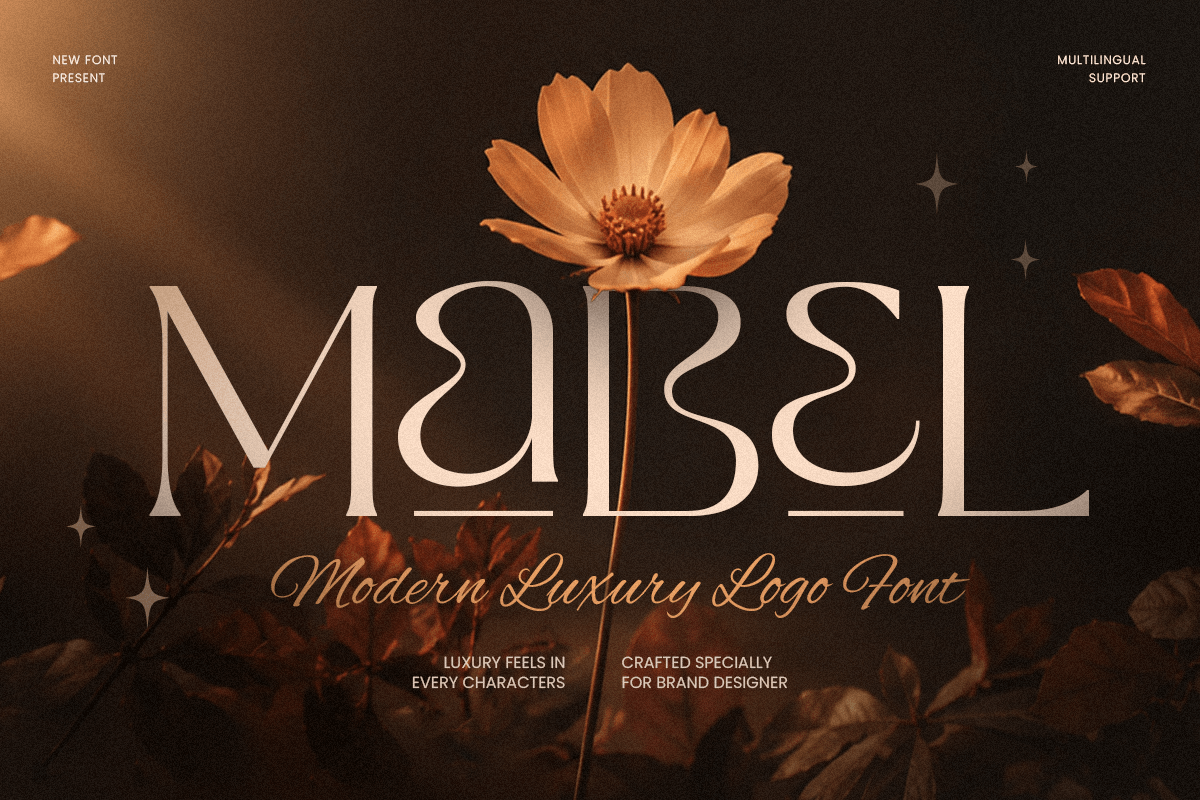
Mabel
-Modern Luxury Logo FontMabel - Modern Luxury Logo Font
Mabel is a modern luxury logo font designed to bring elegance, sophistication, and timeless beauty to premium visual identities. With refined letterforms, graceful proportions, and a polished contemporary style, this typeface is perfect for luxury logos, fashion branding, beauty packaging, editorial layouts, and high-end design projects.
Crafted for designers who value modern simplicity with a luxurious touch, Mabel creates a sophisticated presence that feels exclusive and memorable. Its elegant character shapes help transform brand names, headlines, and visual compositions into refined and stylish expressions.
Whether used for boutique identities, beauty products, wedding stationery, lifestyle brands, or premium marketing materials, Mabel delivers a graceful typographic style across both print and digital applications.
Mabel – Modern Luxury Logo Font Features
Modern luxury design with elegant logo-focused letterforms
Perfect for branding, packaging, editorials, and premium identities
Refined shapes with sophisticated visual balance
Ideal for fashion, beauty, wedding, lifestyle, and boutique brands
OpenType features for enhanced typographic styling